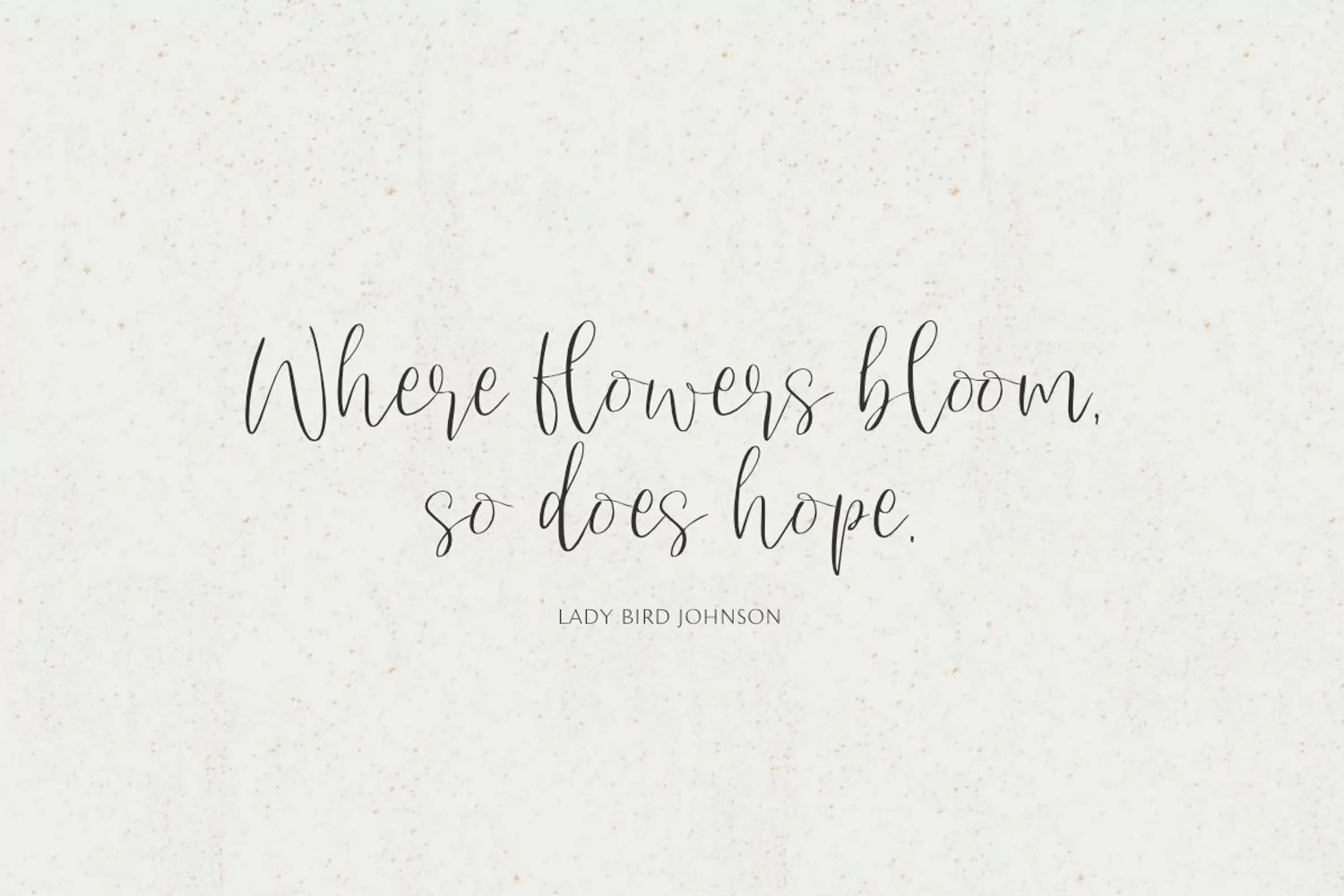
Love Flowers is a lovely and timeless handwritten font. It is a nice choice for creating eye-catching logos, branding, and quotes. Every letter has a unique and beautiful touch to make your design come alive.
Love Flowers